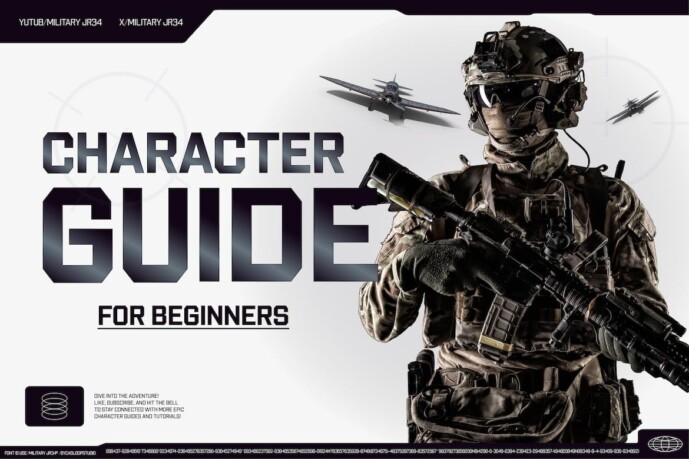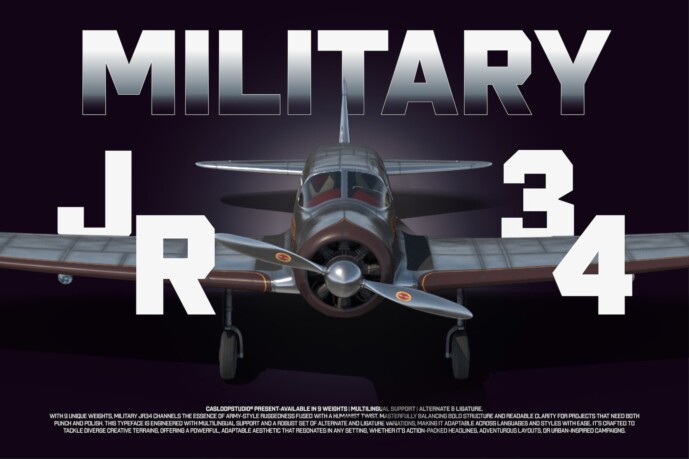
Military JR34 Font
Military JR34 Font, the ultimate typeface that combines robust, structured shapes with a contemporary, versatile edge. This rigid, military-inspired sans serif is designed to give your designs a striking presence, effortlessly blending strength and sophistication.
Military JR 34’s adaptable font family ranges from thin to black fonts, offering a range of expressive options perfect for bold, impactful branding. Its legible block shapes make it a great choice for digital visuals, sportswear, and even automotive-themed packaging. Whether you’re designing campus posters, athletic apparel, or construction signage, this font commands attention